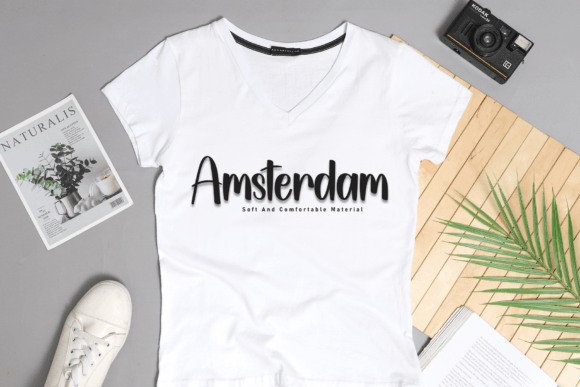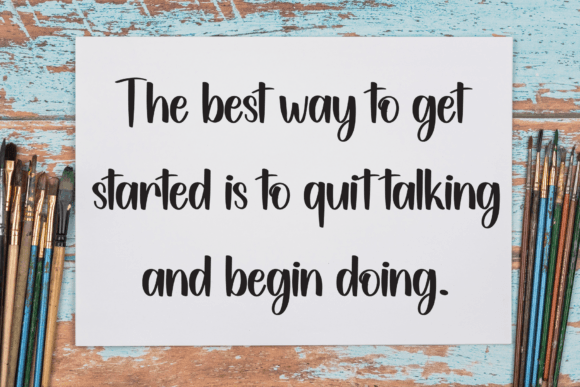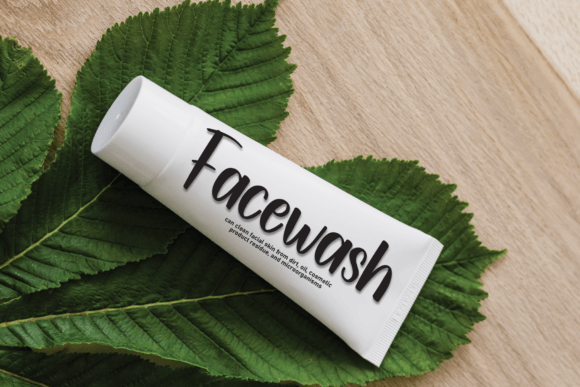
Introduction to Golden Snowman Font
Have you ever stumbled upon a font that instantly sparks joy and puts a smile on your face? For me, that moment came when I discovered the Golden Snowman Font. Its playful, handwritten charm is the perfect addition to any design project, adding a dash of whimsy and friendliness that’s hard to resist. Whether you’re working on a wedding invitation, a greeting card, or a creative project that needs a touch of magic, this font is sure to bring a sense of wonder and delight.
As a designer, you know how valuable it is to have high-quality fonts at your disposal. The Golden Snowman Font is a valuable addition to any design resource library, offering a transparent background and a free download option that makes it accessible to everyone. With its unique, elegant demeanor, this font is sure to elevate your designs and create a captivating atmosphere that will leave a lasting impression.
Key Features of Golden Snowman Font
- High-quality design with intricate details, perfect for a creative project
- Unique, hand-drawn style that adds a touch of whimsy to any design
- Perfect for winter-themed designs, invitations, and holiday cards
Honest Review: Golden Snowman Font
I recently stumbled upon the Golden Snowman Font while searching for a design resource to enhance a creative project. I was excited to try it out and see if it would add that extra sparkle to my design. Overall, I was impressed with its high quality and unique aesthetic.
What works well: ✨ The Golden Snowman Font has a transparent background, which makes it easy to layer over different backgrounds without any unwanted texture or visual noise. This is especially useful for designers who want to maintain control over the design’s overall look. The font also comes in a range of sizes and weights, making it versatile and easy to use.
Overall, I would highly recommend the Golden Snowman Font as a design resource for personal projects or non-commercial use. Its unique design and high quality make it a great addition to any designer’s toolkit.
- High quality font with a unique aesthetic
- Transparent background for easy layering
- Range of sizes and weights for versatility
The Golden Snowman Font is a high-quality design resource that can add a touch of winter wonder to your creative project. With its transparent background, this font is perfect for creating visually appealing designs.
The Golden Snowman Font is perfect for creating winter-themed designs, such as holiday cards, invitations, and social media graphics. It’s also great for adding a touch of whimsy to your designs.